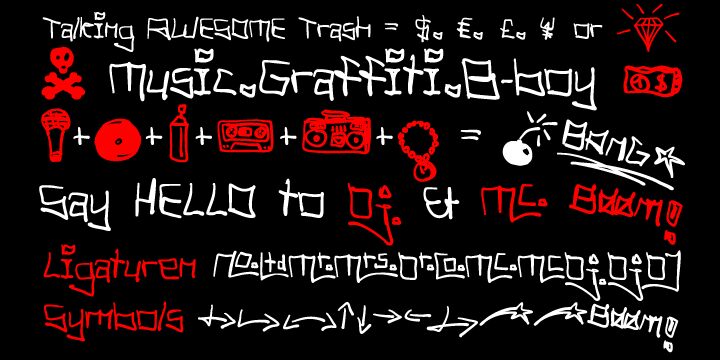
TagHandGraffitiTrash
Headline Font / Display Font / Fancy Font "Tag Hand Graffiti Trash"
OpenType Font with 393 glyphs - alternative letters and ligatures (with accents & ) & 2 styles (regular & fat) + dingbats